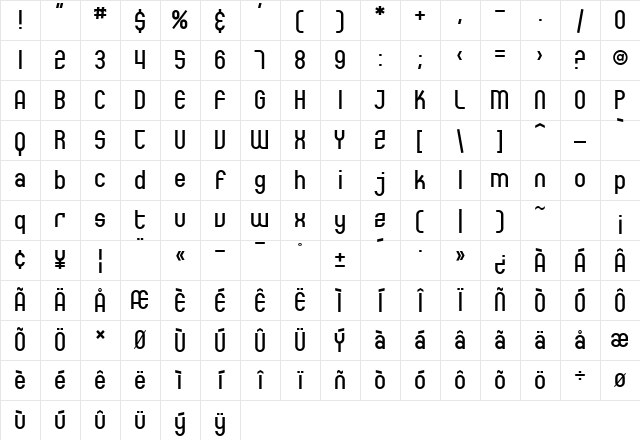
SF Eccentric Opus Regular Free Font
SF Eccentric Opus Regular
SF Eccentric Opus Family
Design Context for SF Eccentric Opus
SF Eccentric Opus is a composed and adaptable typeface that performs quietly and consistently across a wide range of design contexts.
Pro Tip: Use SF Eccentric Opus in both headline and body roles to test its range before committing to a single application.